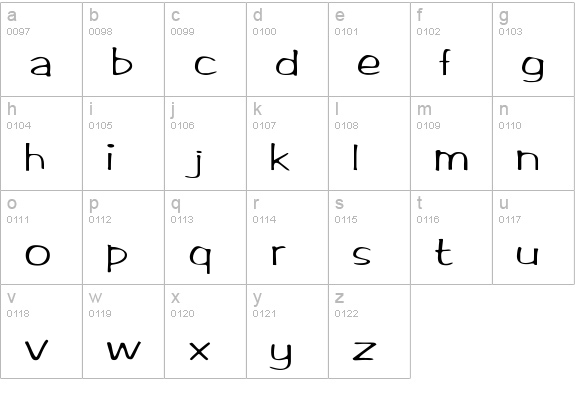
BrushArt Font Details
Introducing BrushArt font, a captivating and expressive typeface that will bring a touch of creativity to your designs. This unique font features hand-drawn brush strokes that exude a sense of artistic flair and individuality. Perfect for adding a playful and dynamic element to your projects, BrushArt font is versatile and can be used for a wide range of design applications. With its charming and organic look, BrushArt font is sure to make your text stand out and leave a lasting impression on your audience. Whether you're working on branding, packaging, invitations, or any other creative project, this font will add a touch of personality and warmth to your designs. Best of all, BrushArt font is available for free download at FontsMarket.com. So go ahead and unleash your creativity with this beautiful and versatile typeface. Download BrushArt font today and let your imagination run wild!